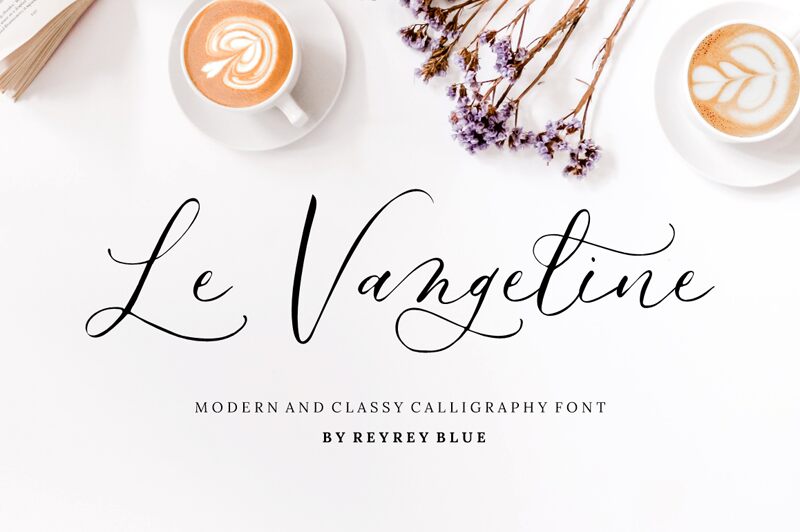
Le Vangeline is a stunning calligraphy font designed by Risca Anitawati. Its delicate thin strokes create a graceful and elegant appearance, perfect for projects like wedding invitations, greeting cards or any sophisticated design that requires a touch of refinement. The font style captures the essence of traditional handwriting with impressive curvatures and swashes that elevate any text it's applied to. Le Vangeline is an ideal choice for fashion, beauty or lifestyle branding projects seeking a luxurious and feminine aesthetic to captivate their audience. With its timeless appeal and versatility, Le Vangeline is sure to become a go-to font for savvy designers.
Le Vangeline
Risca Anitawati